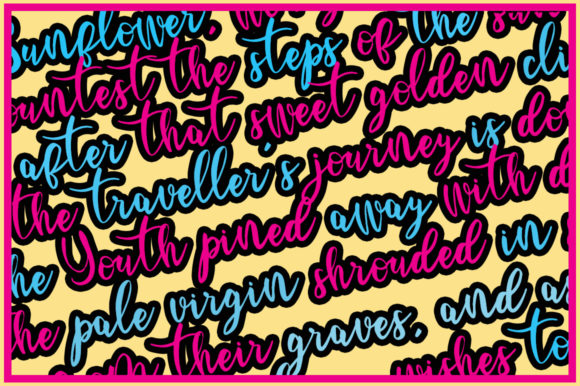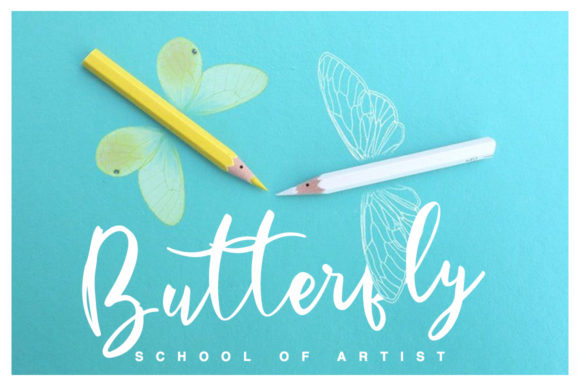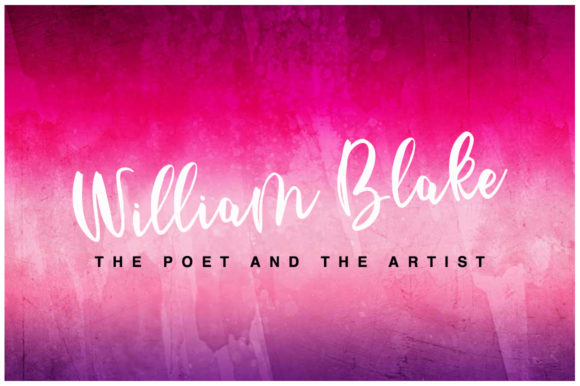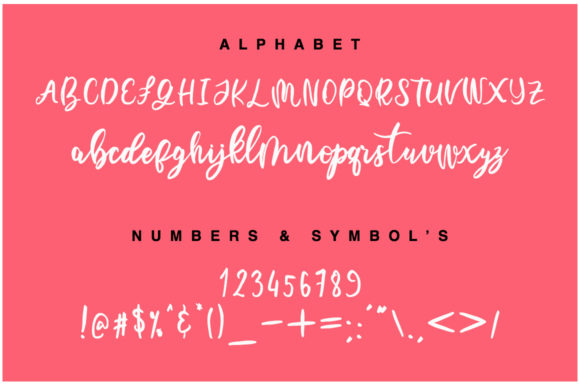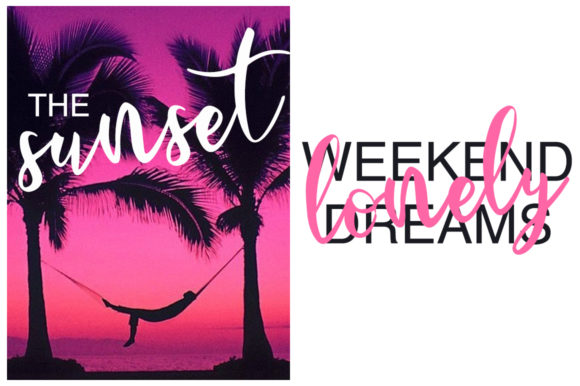
The Mercury Font
About The Mercury Font
The Mercury is a fresh and unique calligraphy font. It is very suitable for greeting cards, branding materials, business cards, quotes, posters, and more!